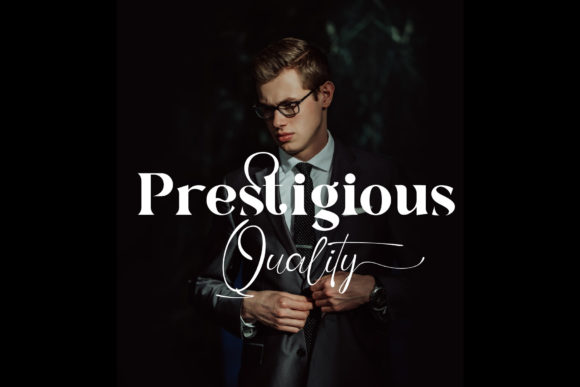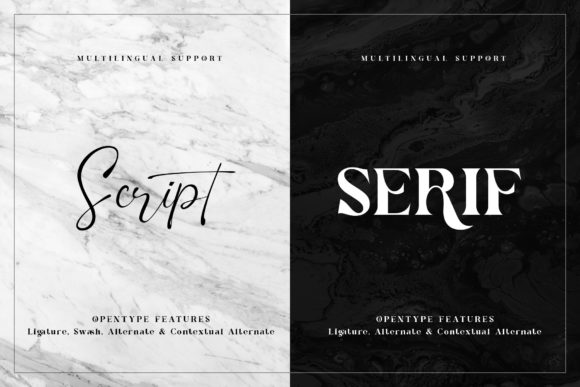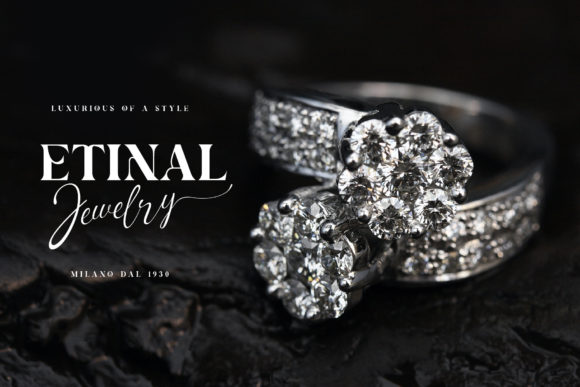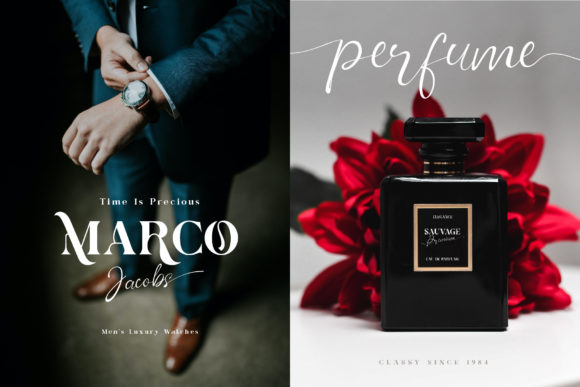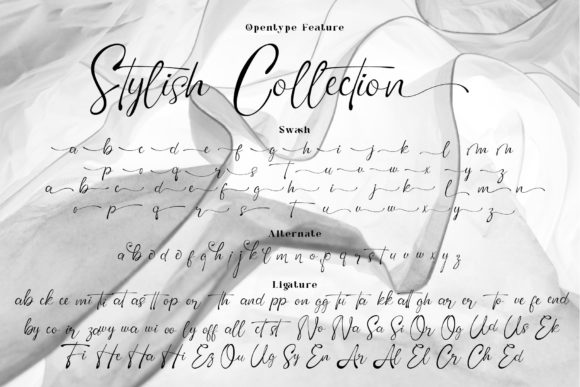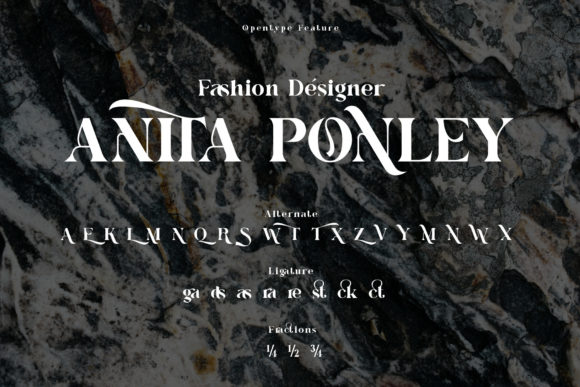
The Ultimate Design Game-Changer: Elegance Signature Font
Have you ever been in the middle of a design project, and suddenly, you’re stuck on finding the perfect font? I certainly have! It was a typical Wednesday afternoon when I was working on a branding project for a luxury client. The logo design was almost complete, but something was missing – the right font. That’s when I stumbled upon the Elegance Signature font, and let me tell you, it was love at first sight! 💕
- 💯 The Elegance Signature font is a beautifully crafted duo font, consisting of a serif and script font, which can be used together or separately.
- 🎨 It’s incredibly versatile and can elevate any design project to the next level.
- 🤝 The combination of serif and script fonts provides a perfect balance of elegance and playfulness.
While the Elegance Signature font is amazing, there are a few things to keep in mind:
- 🤔 Some users might find the script font a bit challenging to read in smaller sizes.
- ⚠️ The font might not work well with certain languages or non-English characters.
The Designer Inspiration Behind Elegance Signature
Although I couldn’t find any information on the designer behind Elegance Signature, I like to imagine that it was created by a team of passionate typographers who wanted to craft a font that would bring elegance and sophistication to any design project. Perhaps they were inspired by classic luxury brands, vintage typography, or modern calligraphy.
Q: Is Elegance Signature a difficult font to read?
A: While the script font may be a bit challenging to read in smaller sizes, the serif font is clear and legible. It’s essential to test the font in different sizes and contexts to ensure it works well for your specific project.